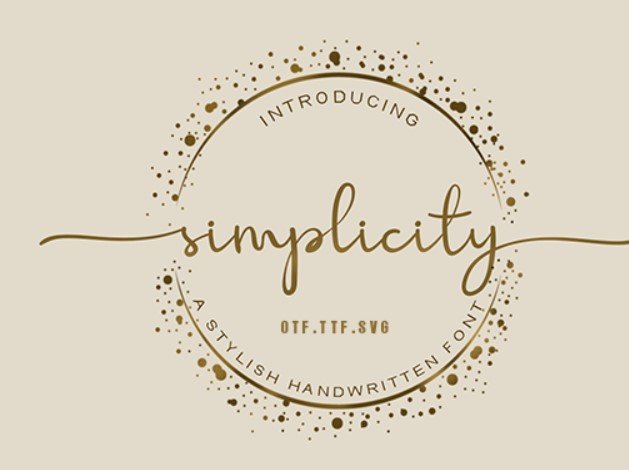
Simplicity Font
These are the decorative and most amazing cursive typeface. We also shared the Simplicity Font that is the exact same thing that we defined above.
About Simplicity Font
Hello there, let's talk a little bit about scripted fonts and then we will share with you the best and most intelligent scripted fonts for your projects. Essentially, a scripted font is used for creating calligraphic and traditional artistic designs that have a natural look.
These are the decorative and most amazing cursive typeface. We also shared the Simplicity Font that is the exact same thing that we defined above.
This is not just a font that is similar to beautiful people, but it contains designs on its own which can easily be utilized in creating logos for curvy features because of its handwritten look. The projects that are made with these strokes can easily attract the viewers and pays extra ordinary attention to the audience.
What Type of Font Is Simplicity?
The Simplicity Font is the famous and amazing typeface which was product of the efforts done by Vanessa Bays.
What's the Closest Font to Simplicity?
The Martel Sans ExtraLight is very close to the Simplicity Font.